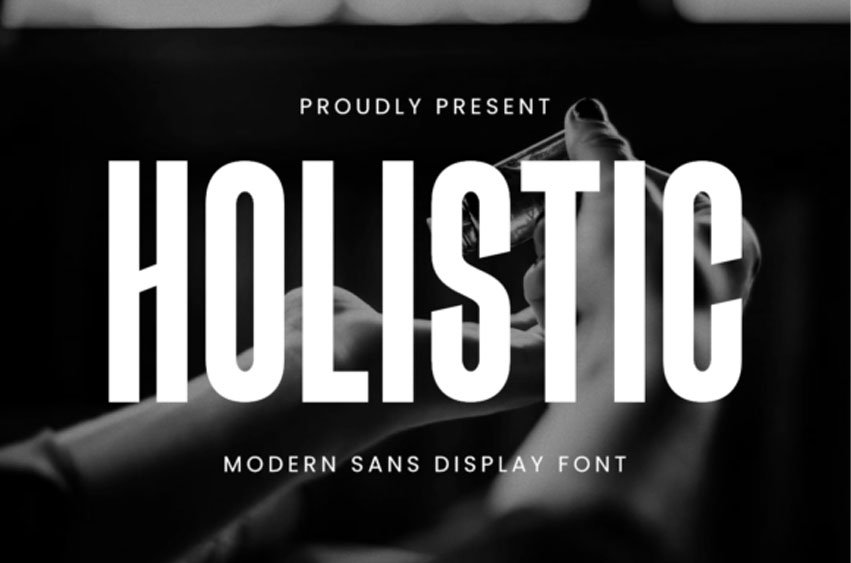
Holistic Font is a powerful and elegant modern sans serif display font that champions clean lines, strong presence, and versatile applicability. Its bold, all-caps letterforms are meticulously crafted to convey a sense of professionalism and contemporary sophistication, making your message resonate with clarity and impact.
This typeface is designed for adaptability, seamlessly fitting into projects that demand both minimalism and strong visual appeal. Holistic is perfect for adding a touch of modern strength and clear messaging to a wide range of creative endeavors. Imagine Holistic enhancing impactful posters, sleek branding materials, professional t-shirt designs, precise labels, contemporary signage, personalized tumblers, and a plethora of other unique crafts.